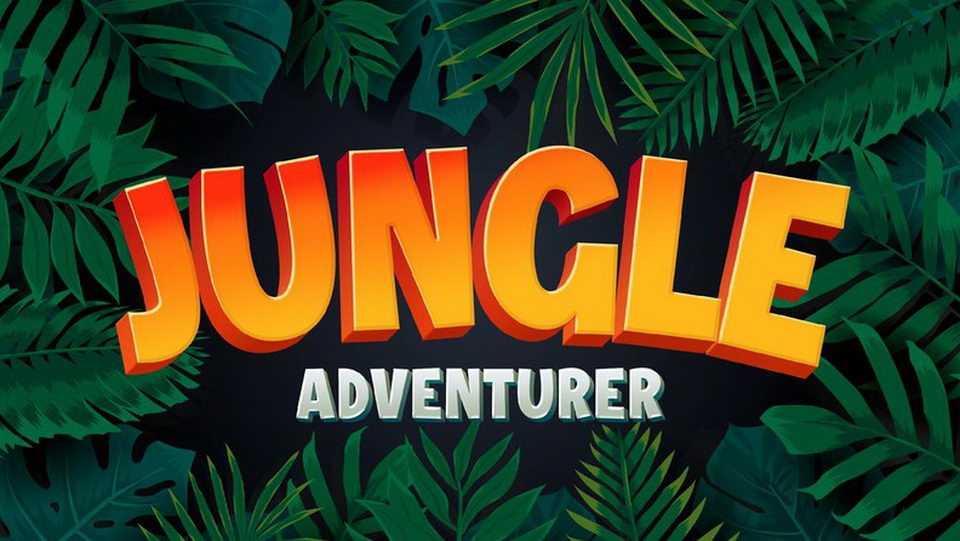
Download Jungle Adventurer font, a display typeface that have a bold shape with powerful and strong stern sans-serif with sharp corner. It will make Jungle Adventurer emphasize on every word you put on the screen.